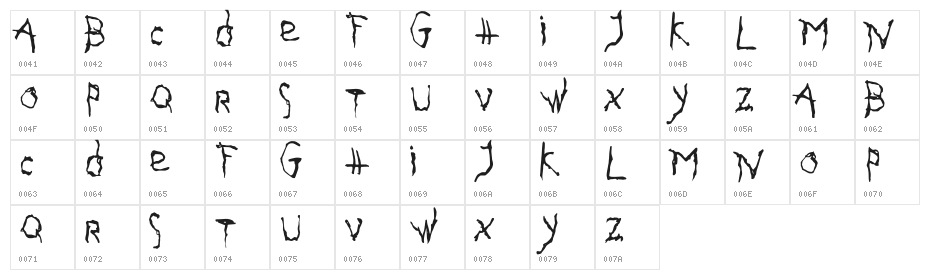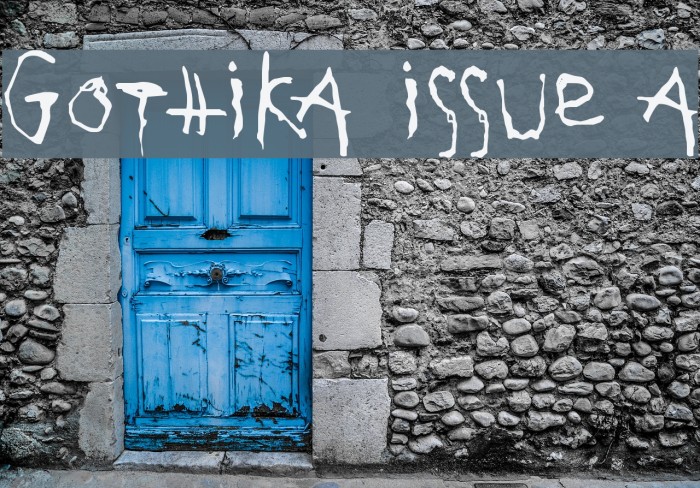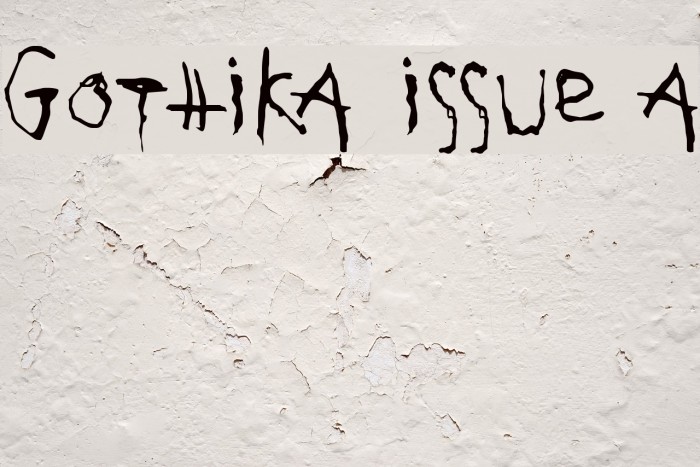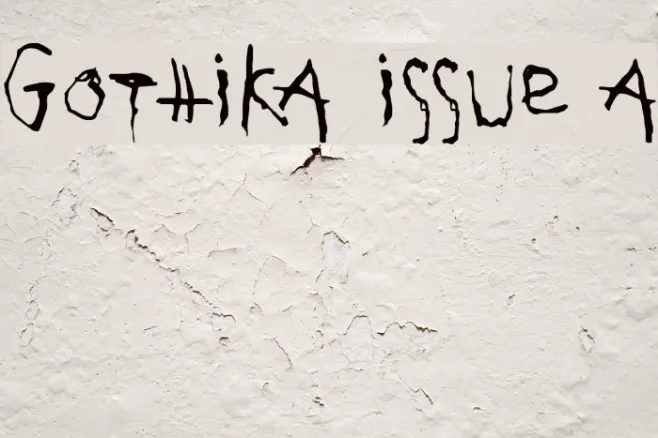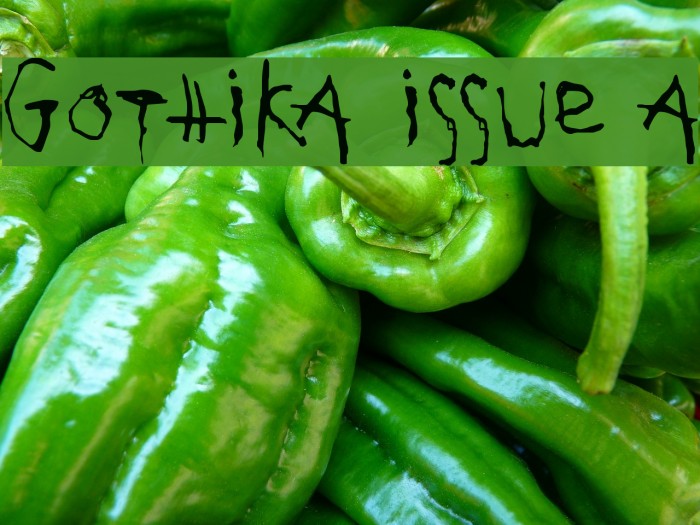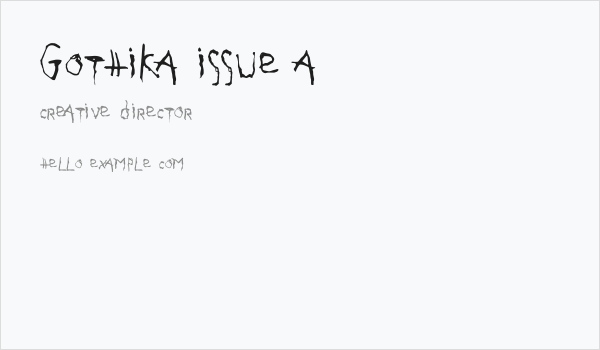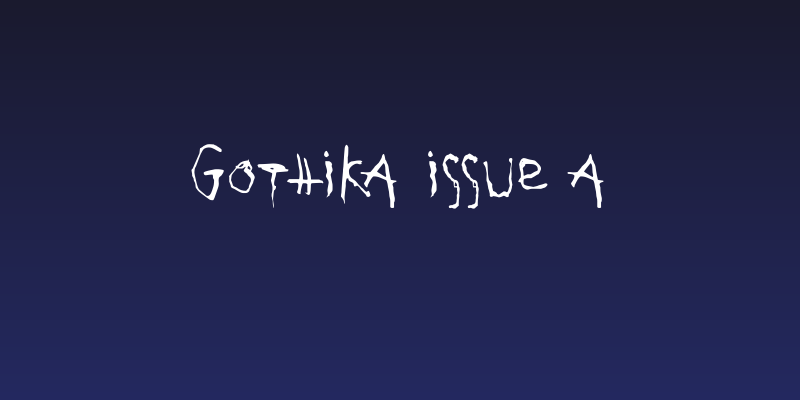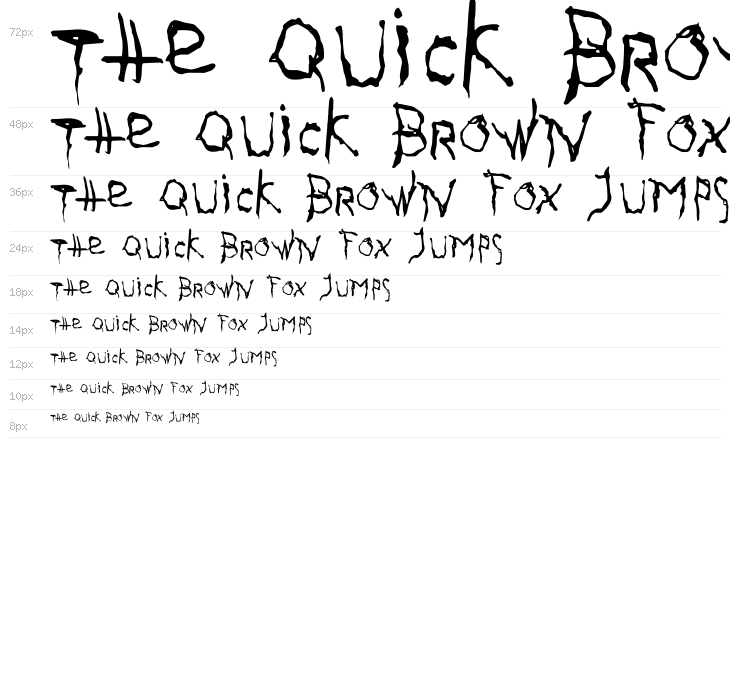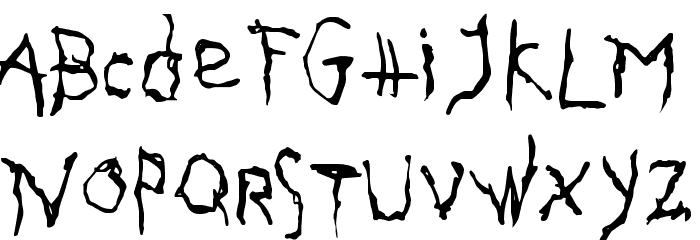
Gothika Issue A Font
Gothika Issue A Description
This font features a distinctively eerie and jagged style, reminiscent of gothic or horror themes. The characters are irregular and appear as if they are dripping or melting, adding to the unsettling aesthetic. The uppercase and lowercase letters maintain a consistent style, with sharp edges and uneven lines that create a sense of chaos and unpredictability. The numbers and special characters follow the same design principles, ensuring a cohesive look across all glyphs. This font is ideal for projects that require a spooky or mysterious atmosphere, such as Halloween-themed designs or horror movie posters.
Overall StyleGothic, Horror
Proposed ProjectsPerfect for Halloween designs, horror movie posters, or any project needing a spooky, gothic touch.